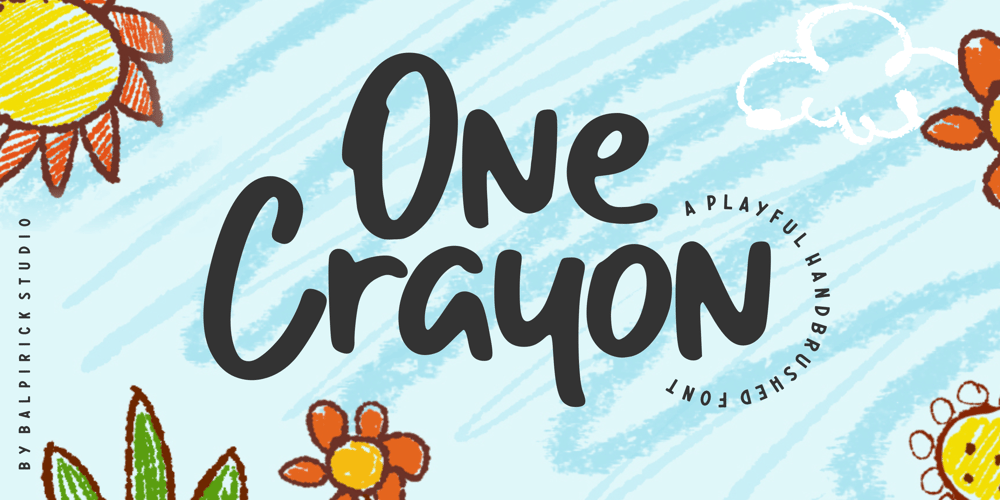
One Crayon Font Family was designed by Restu Angga and published by Balpirick. One Crayon contains 1 styles and family package options. One Crayon is a Playful Handbrushed Font.One Crayon is a cute and informal display font. It embodies playfulness and authenticity and is the perfect choice for any children activity or school project.One Crayon also multilingual support.Enjoy the font, feel free to comment or feedback, send me PM or email.Thank you!